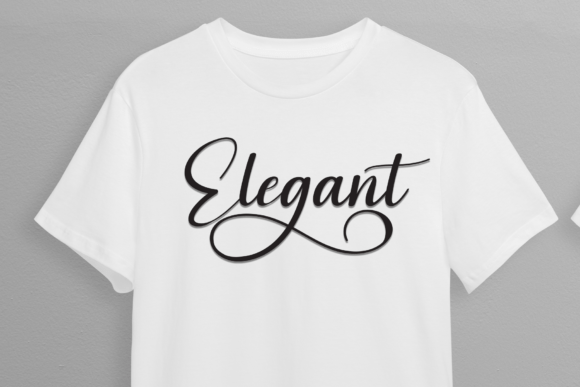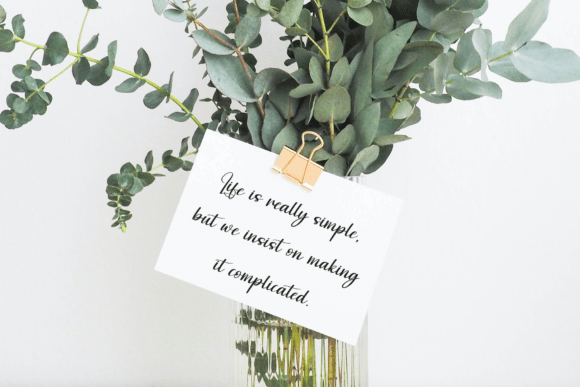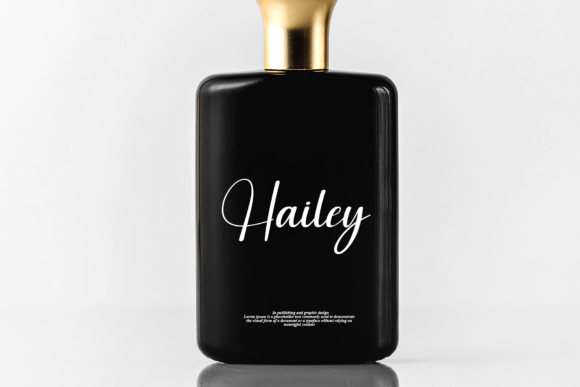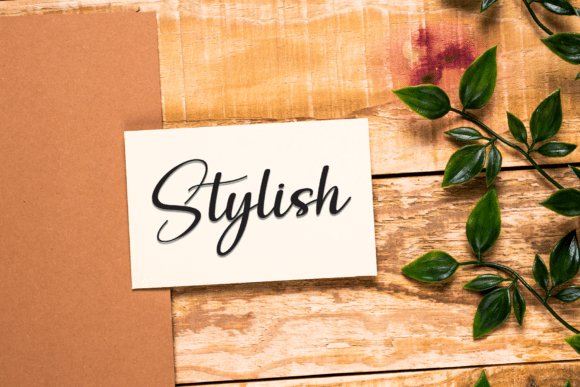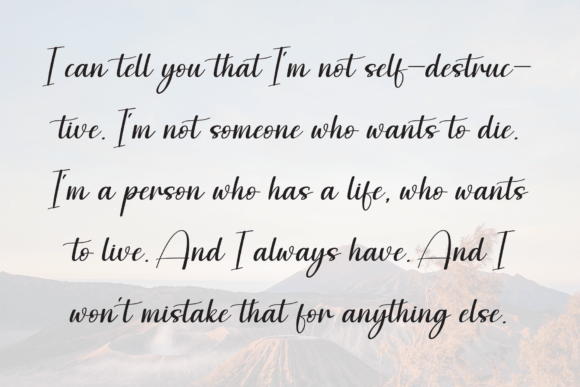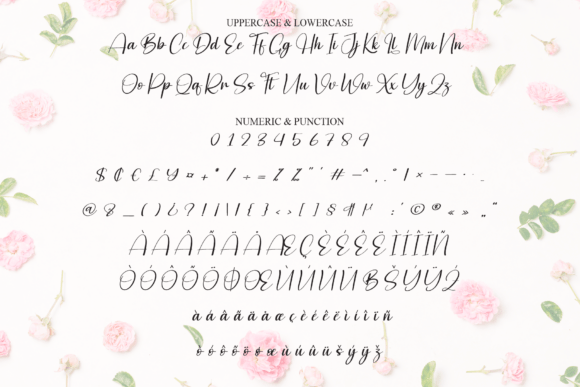
Introducing Delighter Font: Elevate Your Designs with Modern Elegance
In the world of typography, few fonts manage to strike a balance between creativity, elegance, and versatility. Delighter Font is one such exceptional typeface that has been making waves in the design community. This stylish script font is a perfect blend of traditional calligraphy and modern sophistication, making it an ideal choice for designers and crafters looking to add a touch of luxury to their projects.
The Essence of Delighter Font
Delighter Font is characterized by its flowing strokes, graceful curves, and expressive letterforms. Each character is meticulously crafted to exude a sense of fluidity and movement, reminiscent of hand-drawn calligraphy. However, what sets Delighter apart is its contemporary flair, which gives it a fresh and modern appeal. This font is not just about aesthetics; it’s also designed to be highly legible and versatile, making it suitable for a wide range of applications.
Key Features of Delighter Font
- Flowing Strokes and Curves: Delighter’s design is marked by smooth, flowing strokes that give it a dynamic and elegant feel.
- Expressive Letterforms: Each letter in the Delighter Font is designed to convey a sense of personality and style, making your text stand out.
- Modern Elegance: The font combines traditional calligraphic elements with a modern twist, making it perfect for designs that require a touch of sophistication.
- Versatility: Whether you’re working on a logo, invitation, packaging, or social media graphic, Delighter Font adapts seamlessly to different design needs.
Delighter Font is incredibly versatile, making it suitable for a variety of design projects. Here are some of the ideal applications for this beautiful font:
- Logos: Create a memorable brand identity with a logo that stands out, thanks to Delighter’s unique and stylish letterforms.
- Invitations: Add an artistic and sophisticated touch to your event invitations, making them truly special.
- Packaging: Elevate your product packaging with a font that exudes elegance and modernity.
- Social Media Graphics: Make your social media posts and stories more engaging with a font that captures attention and conveys style.
Why Choose Delighter Font?
In a sea of fonts, Delighter stands out for several reasons:
- Unique Aesthetic: Its blend of traditional and modern elements gives it a unique aesthetic that’s hard to find elsewhere.
- High Legibility: Despite its artistic nature, Delighter Font maintains high legibility, ensuring your message is conveyed clearly.
- Easy to Use: Delighter is designed to be user-friendly, making it easy to incorporate into your designs, even for those with limited typography experience.
Delighter Font is more than just a typeface; it’s a design statement. With its stylish script, modern elegance, and versatile nature, it’s an invaluable asset for designers and crafters looking to elevate their projects. Whether you’re aiming to create a stunning logo, an elegant invitation, or eye-catching packaging, Delighter Font is sure to deliver both visual charm and versatility. Add a touch of sophistication and creativity to your designs with Delighter Font, and watch your projects transform into works of art.